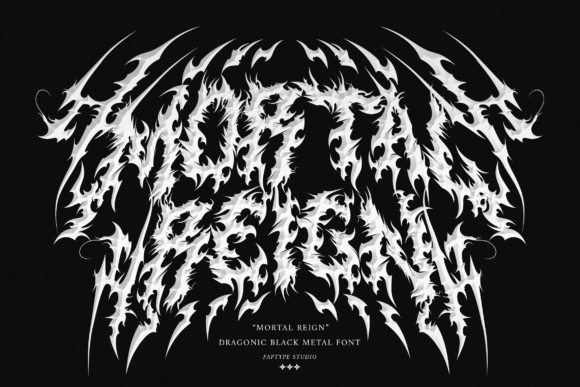
Mortal Reign Black Metal Font – Dragonic Typeface for Extreme Designs
For designers who seek to bring raw intensity and primal energy to their visual projects, the Mortal Reign Black Metal Font is a powerful tool. This dragonic typeface isn’t just about aesthetics — it’s about making an impact that resonates with themes of darkness, rebellion, and chaos. Its jagged, spiked characters evoke the imagery of fire, steel, and ancient runes, aligning perfectly with black metal culture and extreme design needs.
Understanding Mortal Reign in the Design Process
Fonts play a critical role in any design workflow, especially when the goal is to communicate a specific tone or emotion. In the case of Mortal Reign, its purpose is clear: to amplify aggression and add a layer of authenticity to dark-themed projects. Whether you're working on music album art, horror posters, or fantasy branding, this font can serve as a foundational element that ties your visuals together with a cohesive, extreme identity.
Incorporating Mortal Reign into your creative process requires understanding where it fits best. It’s ideal for headlines, logos, and key text elements rather than body copy. Its readability at larger sizes ensures it remains functional while still delivering maximum visual punch. Before selecting it for a project, consider the context — does the message need to scream or whisper? If it's the former, Mortal Reign may be exactly what you’re looking for.
It’s also important to prepare your project layout accordingly. Since Mortal Reign has a bold, aggressive structure, pairing it with minimalist or contrasting elements can help balance the composition. Think of it as the lead vocalist in a band — powerful and commanding, but only effective when supported by the right instrumentation.
Implementation Across Creative Projects
Here are several practical use cases where Mortal Reign can enhance your work:
- Music Branding: Ideal for death metal, black metal, or punk genres. Use it for band logos, album covers, and gig posters to capture attention instantly.
- Tattoo Art: Apply the font to custom ink designs or promotional materials for tattoo studios specializing in edgy, gothic, or fantasy styles.
- Film and Horror Visuals: Incorporate it into titles, credits, or promotional assets for independent horror films, documentaries, or fan-made content.
- Dark Fantasy Media: From book covers to game UIs, Mortal Reign adds a mythical and intimidating feel to any fantasy-related project.
When implementing the font during the design phase, start by setting the mood. For example, if you're creating a poster for a black metal concert, begin with a dark background and apply the font in metallic red or white hues. The contrast will highlight the sharpness of the letters and reinforce the theme.
- Define Project Goals: Identify the emotional tone you want to convey. Is it anger, fear, or mysticism? Align the font choice with that intent.
- Test Variations: Experiment with spacing, weight, and size to find the optimal look. Sometimes a slightly bolder version or condensed format can improve the overall impact.
- Layer with Assets: Combine the font with textures like cracked stone, blood splatter, or fire effects to deepen the atmosphere of your design.
The Mortal Reign Black Metal Font is more than a stylistic choice — it’s a strategic decision to align your design with a specific genre and audience. By integrating it into your workflow with care and intention, you can elevate your projects from generic to unforgettable. Whether you’re a seasoned graphic designer or a hobbyist exploring typography for the first time, Mortal Reign offers a unique opportunity to channel raw power into every visual statement you create.